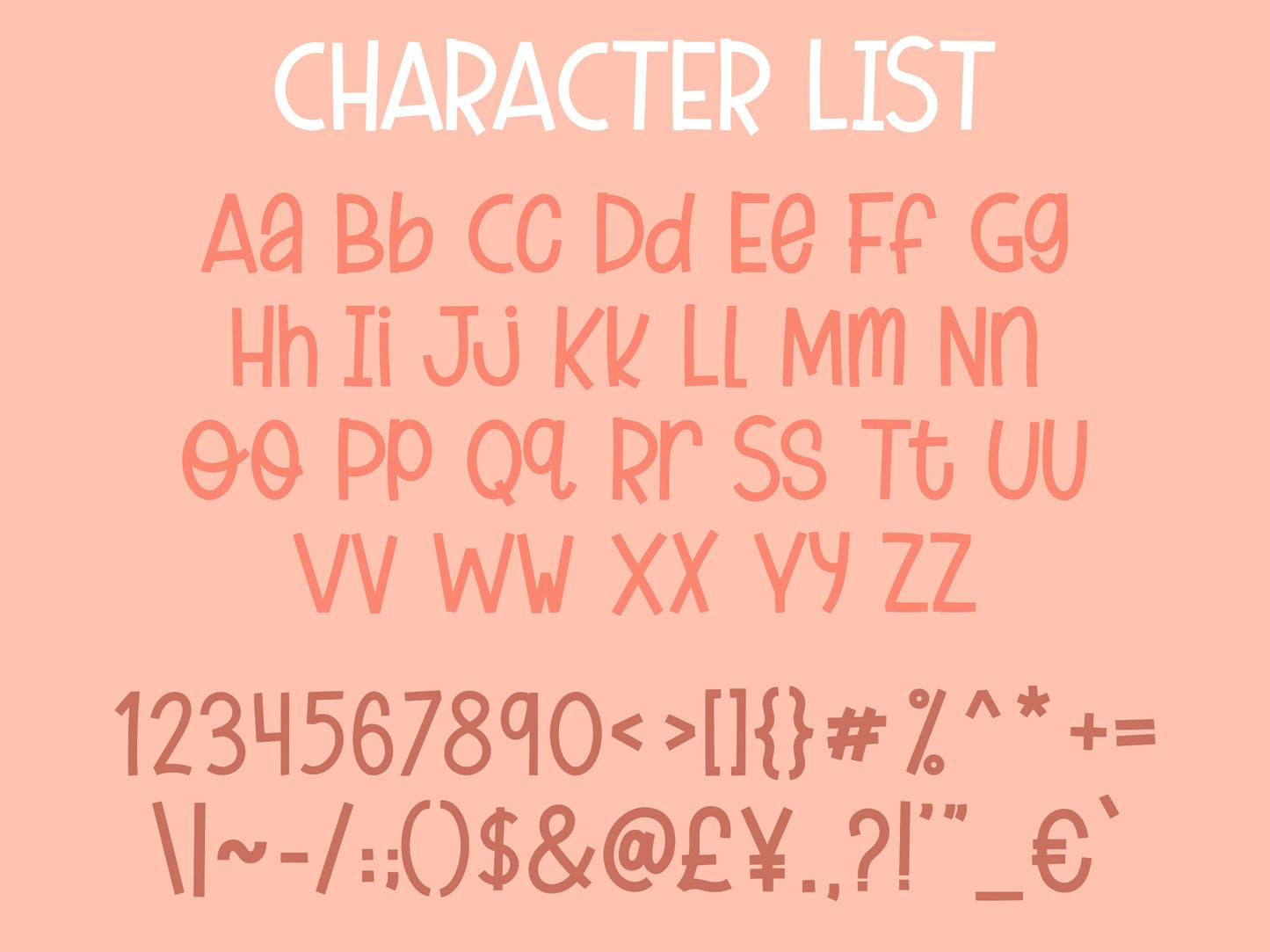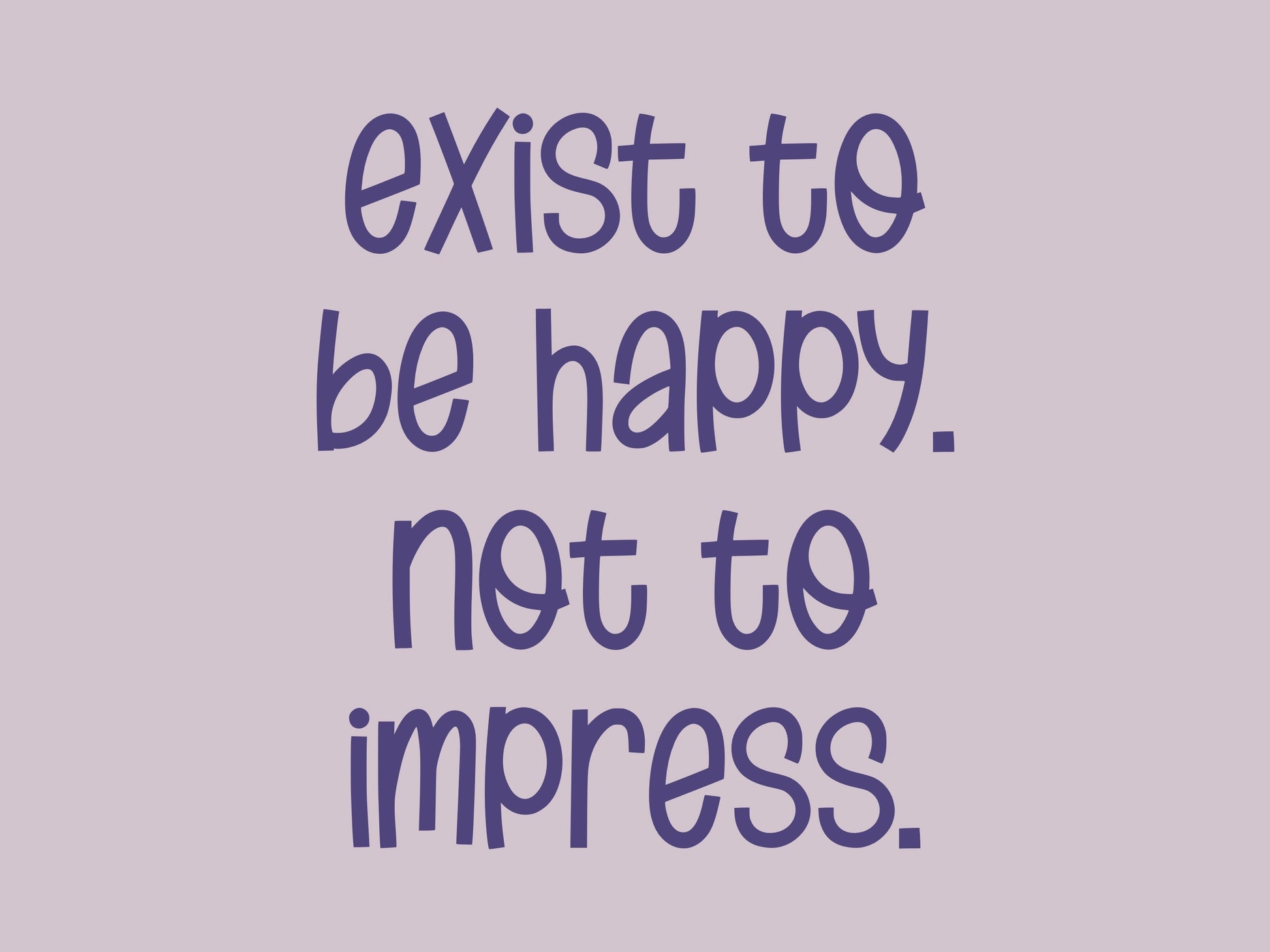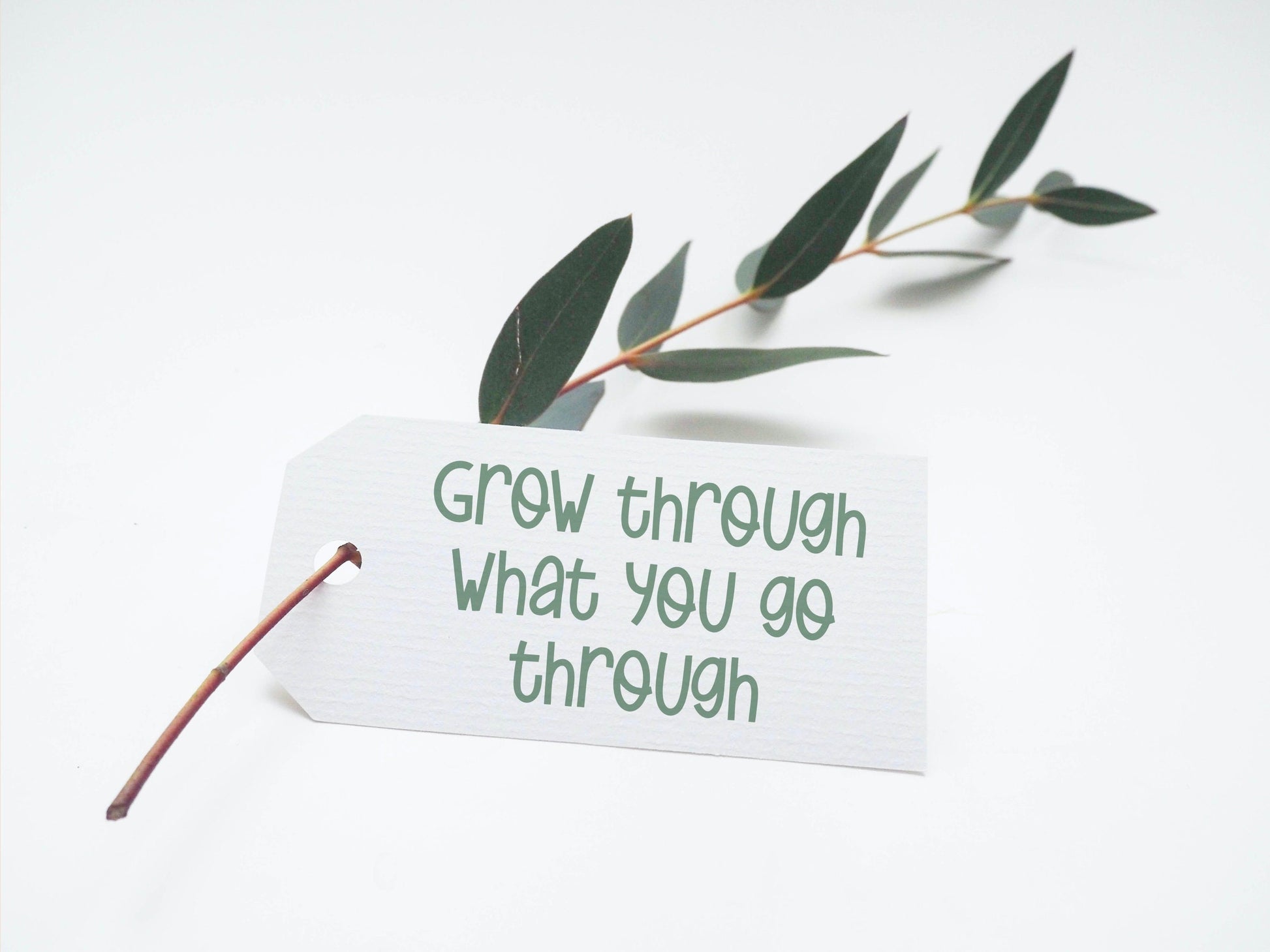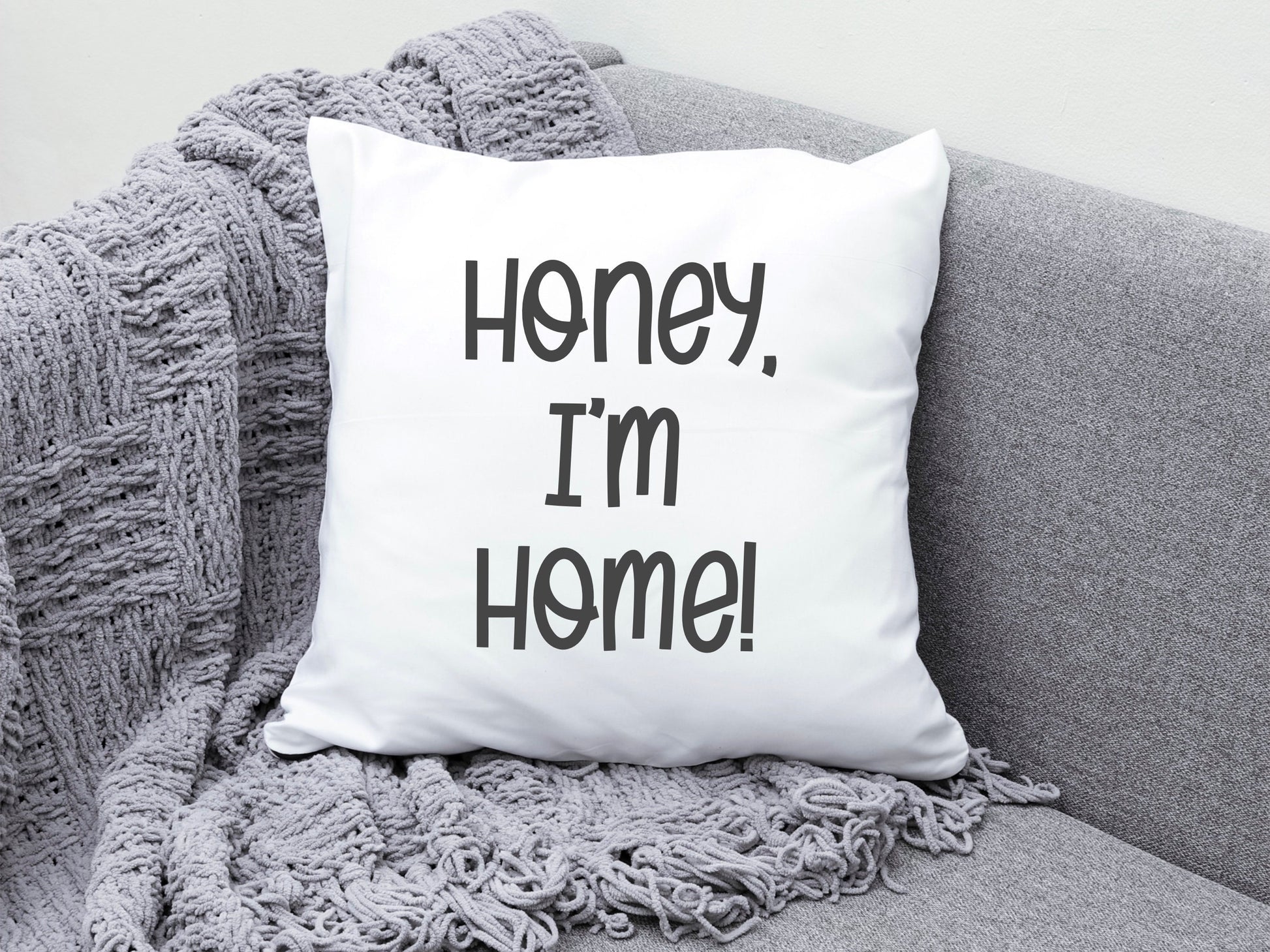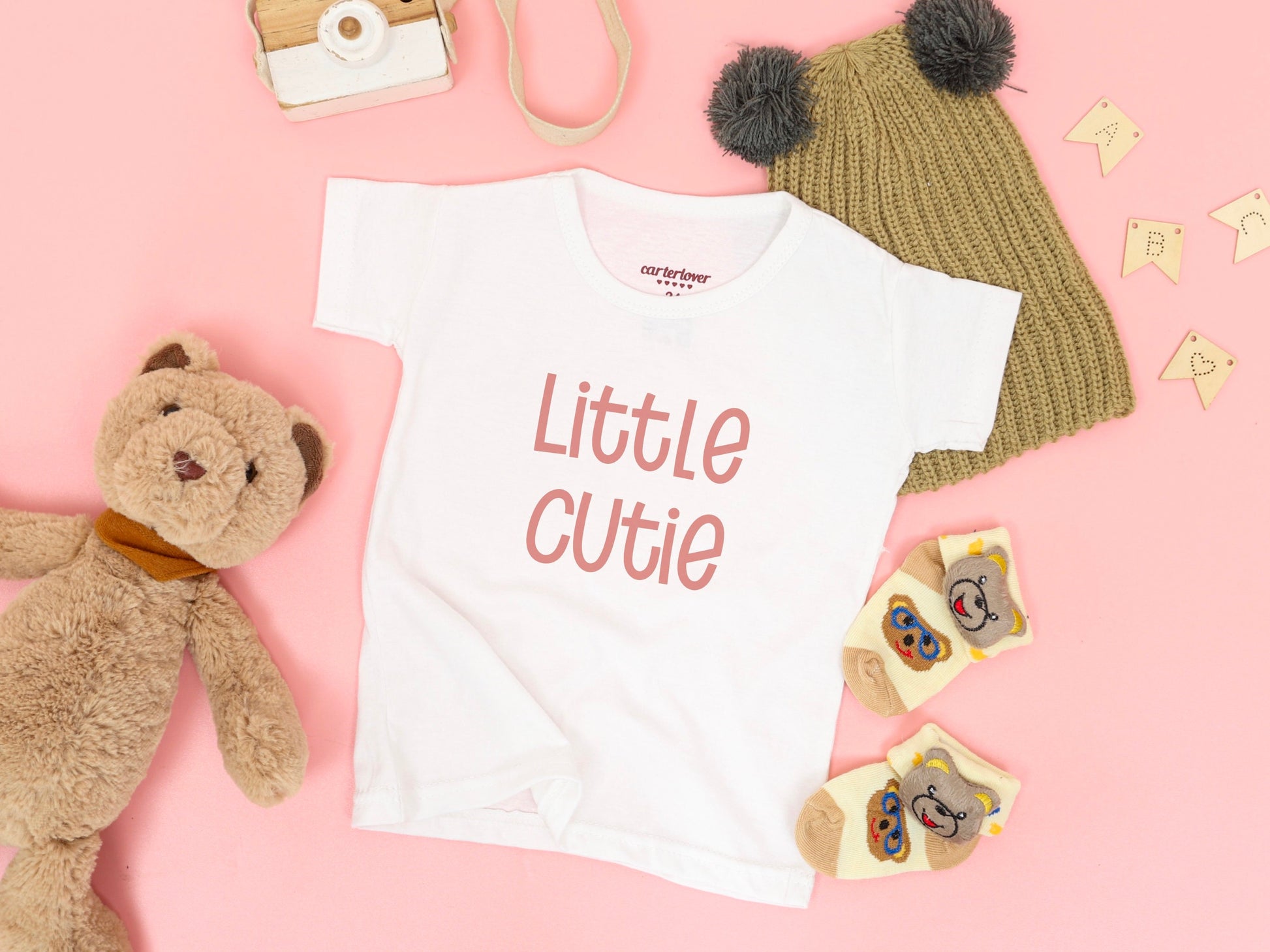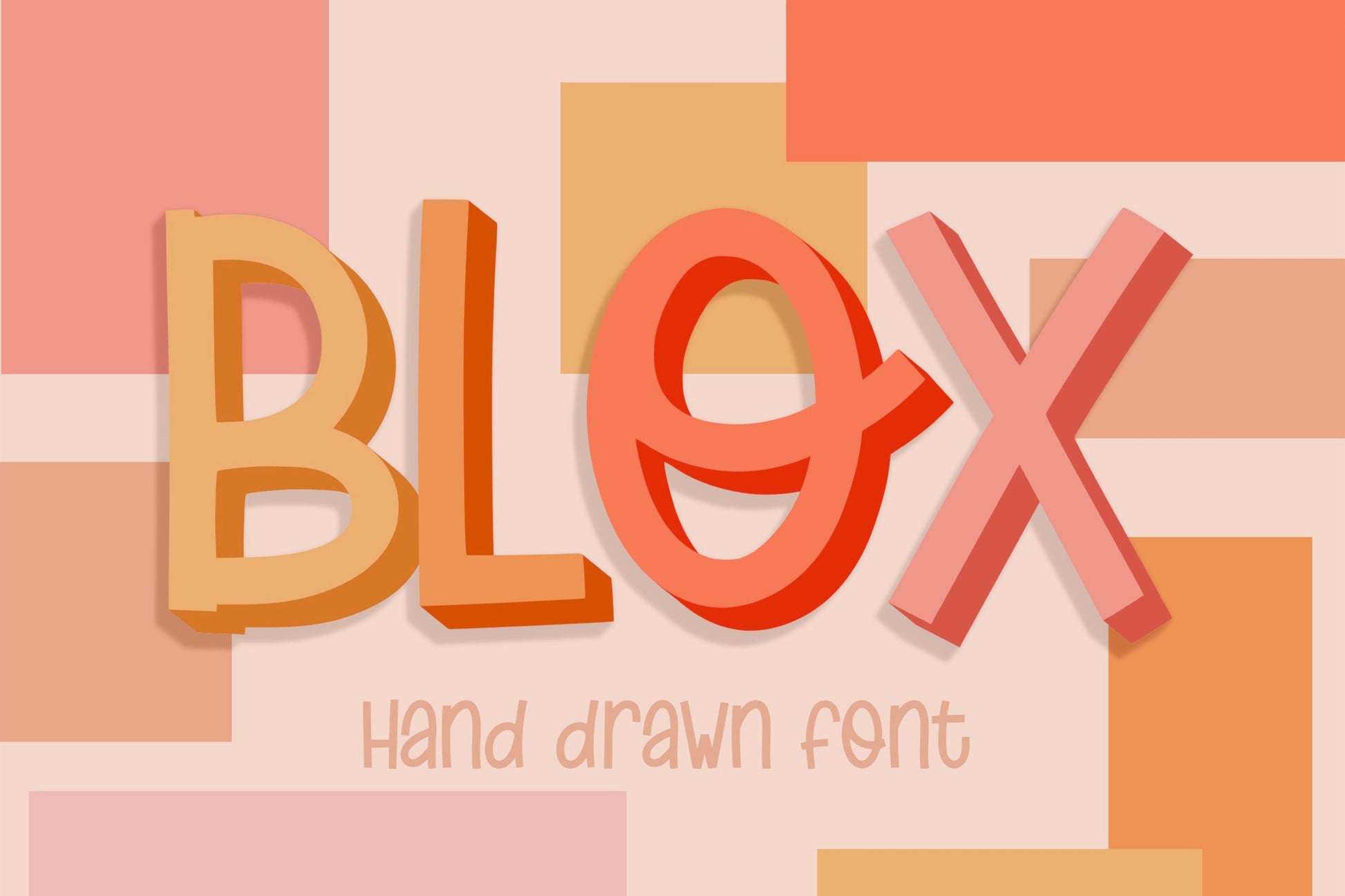
Blox Hand Drawn Font
This is my Blox handwritten/hand drawn font. This unique, squared monoline font will add a fun, playful, handmade flare to your design! This versatile font is great for casual, playful occasions, designs, and logos!